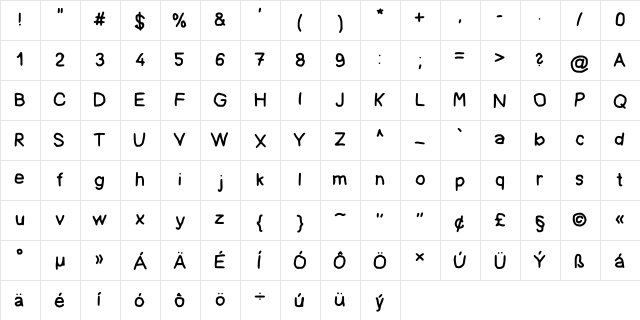
Jirkovo pҳmo Regular Font Preview
Jirkovo pҳmo Regular
Jirkovo pҳmo Regular Font Details
Design Context for Jirkovo pҳmo Typeface
Jirkovo pҳmo is a composed and adaptable typeface that performs quietly and consistently across a wide range of design contexts.